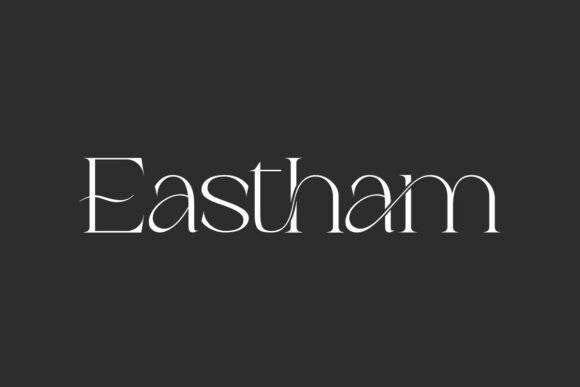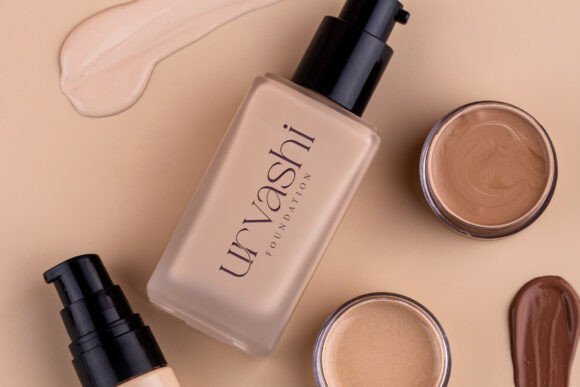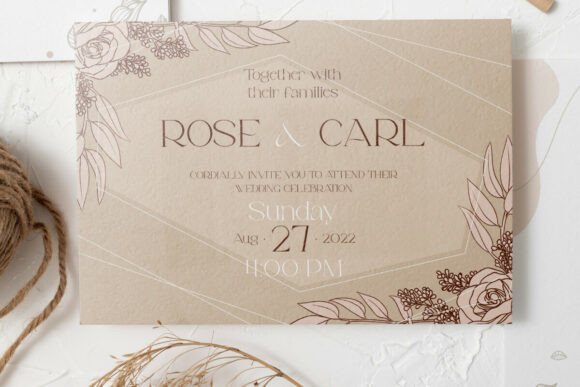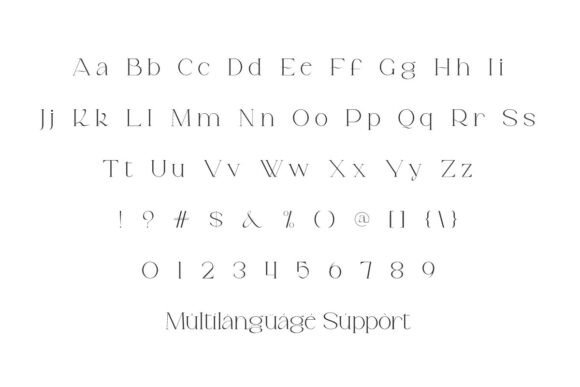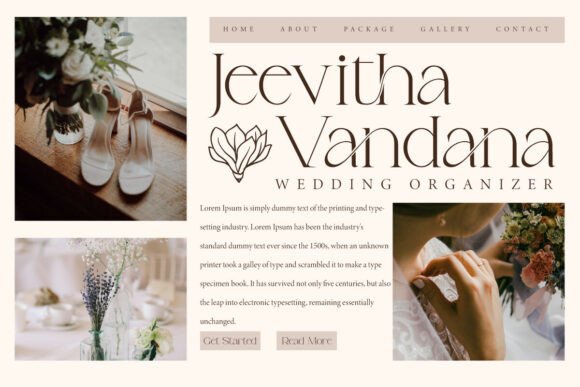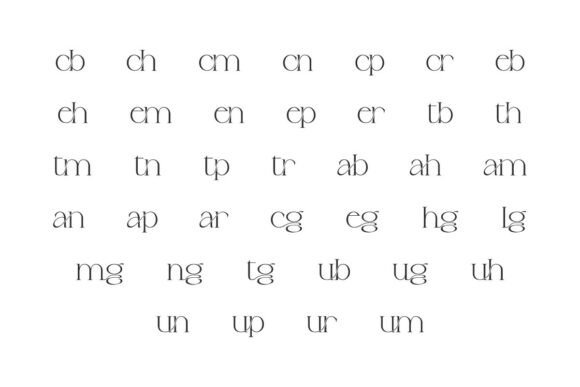
Eastham Font: Elevate Your Design with Elegance and Sophistication
In the world of typography, few fonts capture the essence of luxury and sophistication as effortlessly as the Eastham font. This exquisite display typeface is designed to turn heads with its dramatic contrast, mesmerizing decorative swashes, and an undeniable air of high-end refinement. Whether you’re a designer looking to elevate your branding, or a crafter seeking the perfect typography for your exclusive creations, the Eastham font is an exceptional choice that promises to make your work stand out.
Unparalleled Elegance: The Design of Eastham Font
The Eastham font is rooted in classic serif structures, yet it evolves into something entirely unique with its flowing, exaggerated flourishes. These decorative elements are not just add-ons; they are seamlessly integrated into the letterforms, creating a sense of movement and dynamism. The delicate interplay of thick and thin strokes further enhances the luxurious appeal of Eastham, making it a powerful tool for impactful yet refined branding.
Perfect for Luxury and High-End Projects
Given its sophisticated and elegant design, the Eastham font is perfectly suited for a variety of high-end applications. Some of the ideal uses for this font include:
- Exclusive Luxury Logos: Create a lasting impression with a logo that exudes luxury and sophistication.
- High-End Editorial Design: Elevate your publications with a font that commands attention and respect.
- Sophisticated Event Invitations: Set the tone for an upscale event with invitations that feature the Eastham font.
- Fashion Photography Watermarks: Add a touch of elegance to your fashion photography with a distinctive watermark.
- Distinctive Wedding Stationery: Make your wedding stationery unforgettable with the luxurious feel of the Eastham font.
PUA-Encoded for Effortless Customization
Understanding the needs of designers and crafters, the Eastham font is also PUA-encoded. This feature ensures effortless access to all glyphs, swashes, and alternate characters, allowing for a high degree of customization. With PUA encoding, you can easily incorporate the decorative swashes and unique characters into your design, giving you the flexibility to create something truly unique and personalized.
Why Choose Eastham Font?
Choosing the Eastham font for your design project comes with numerous benefits. Here are a few reasons why it stands out:
- Unique and Memorable: The dramatic contrast and decorative swashes make it instantly recognizable.
- Versatile: Suitable for a wide range of applications, from digital designs to print materials.
- Elegant and Sophisticated: Adds a touch of luxury to any project.
- Customizable: PUA encoding allows for easy access to glyphs and swashes for personalized designs.
The Eastham font is a stunning display typeface that brings a level of elegance and sophistication to any design project. Its unique blend of classic serif structures with flowing, exaggerated flourishes makes it a standout choice for designers and crafters looking to create high-end branding, editorial designs, event invitations, fashion photography watermarks, and wedding stationery. With its PUA encoding for effortless customization, the Eastham font is not just a typography choice; it’s an opportunity to elevate your design to new heights of luxury and refinement.
Whether you’re aiming to create a lasting impression with a luxury logo or seeking the perfect typography for your exclusive wedding stationery, the Eastham font is an exceptional choice. Its powerful design ensures your message stands out with unparalleled grace, making it a valuable addition to your typography arsenal.